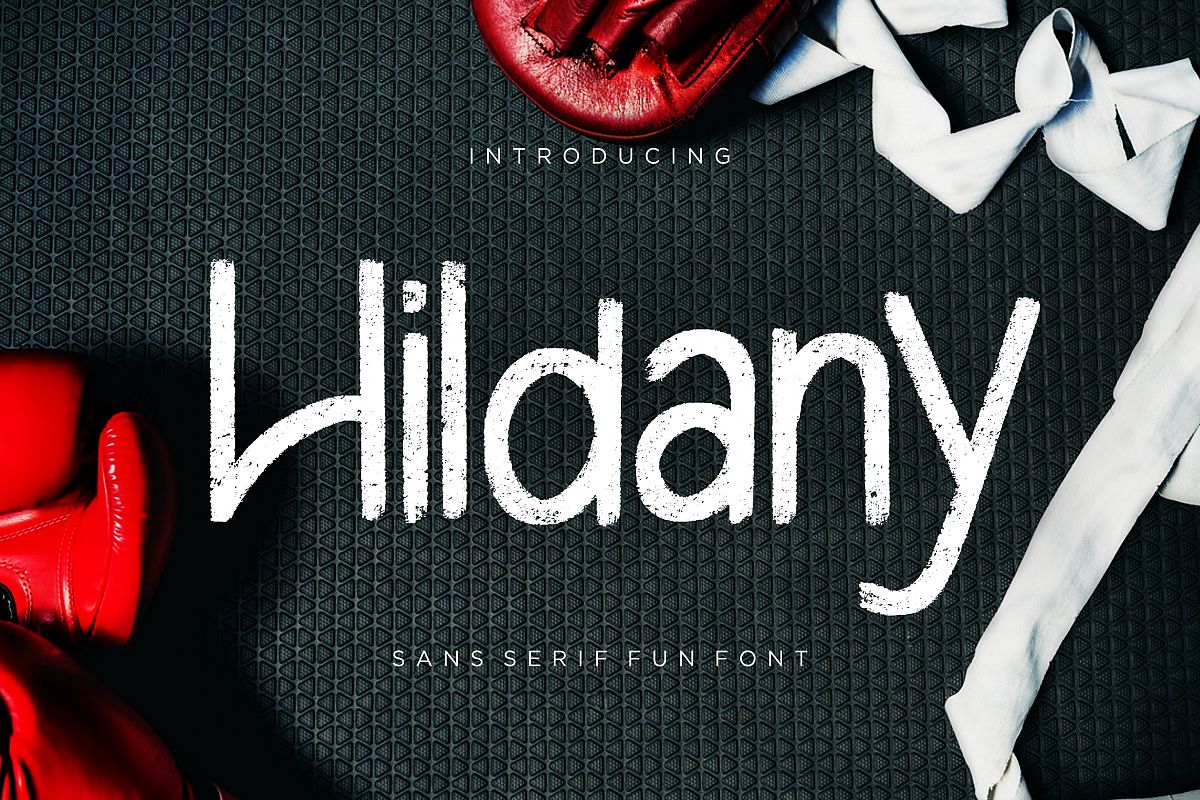
Hildany Sans Fun
Hildany
Hildany is sans serif fun font with brush hand-drawn. It looks funny, happy and cheer up.
Hildany is perfect for branding projects, logo, wedding designs, social media posts, advertisements, product packaging, product designs, label, photography, watermark, invitation, stationery and any projects that need handwriting taste.